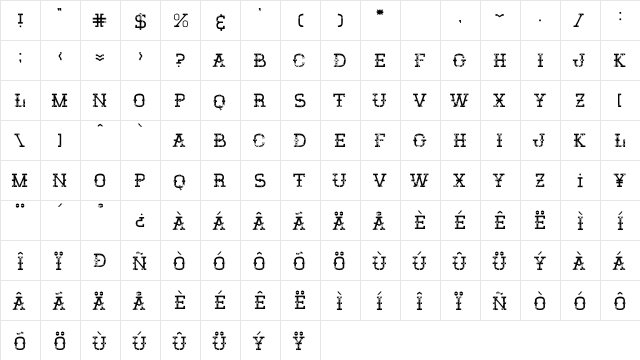
El Sancho Regular
| Foundry | Font Monger |
| Designer | Chris Vile |
Design Context for El Sancho Typeface
El Sancho takes a measured approach to typography — its balanced proportions and neutral character make it a reliable workhorse for both digital and print work.